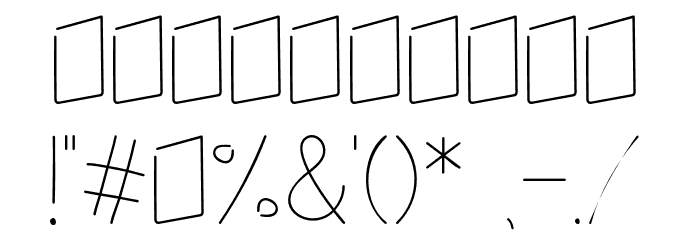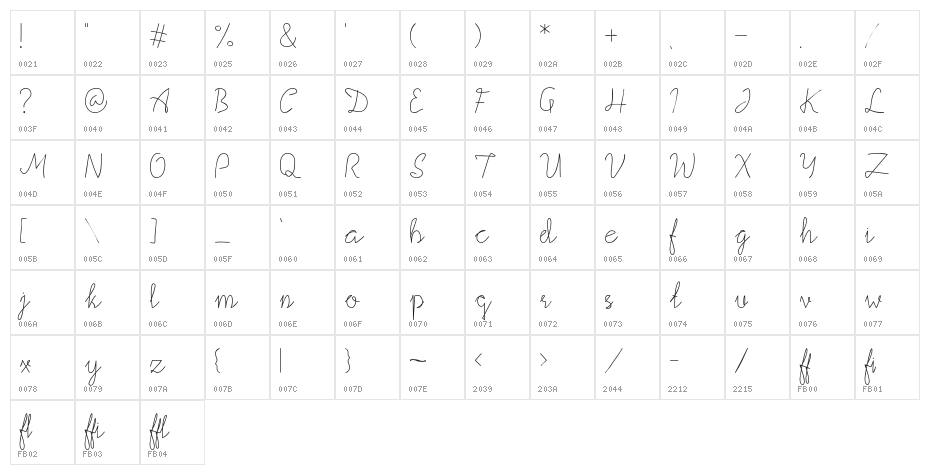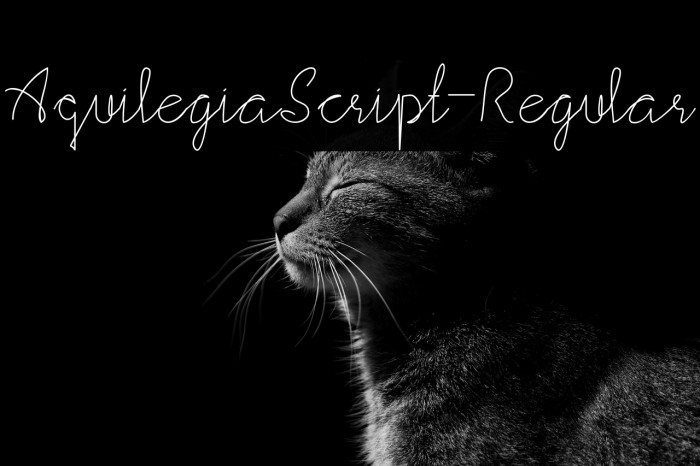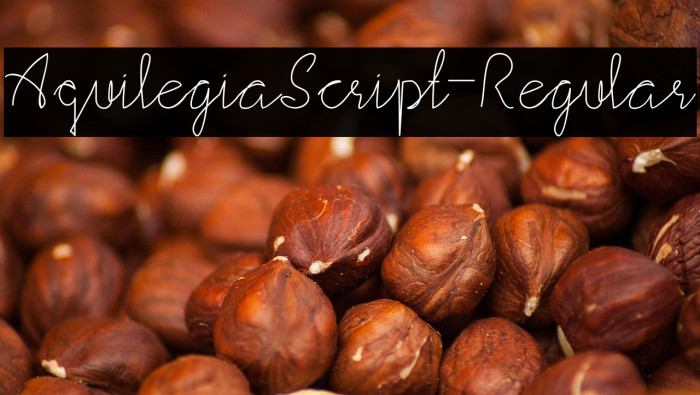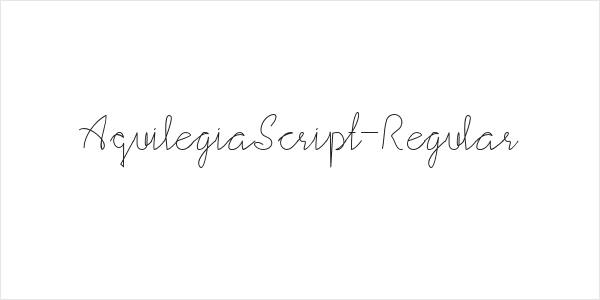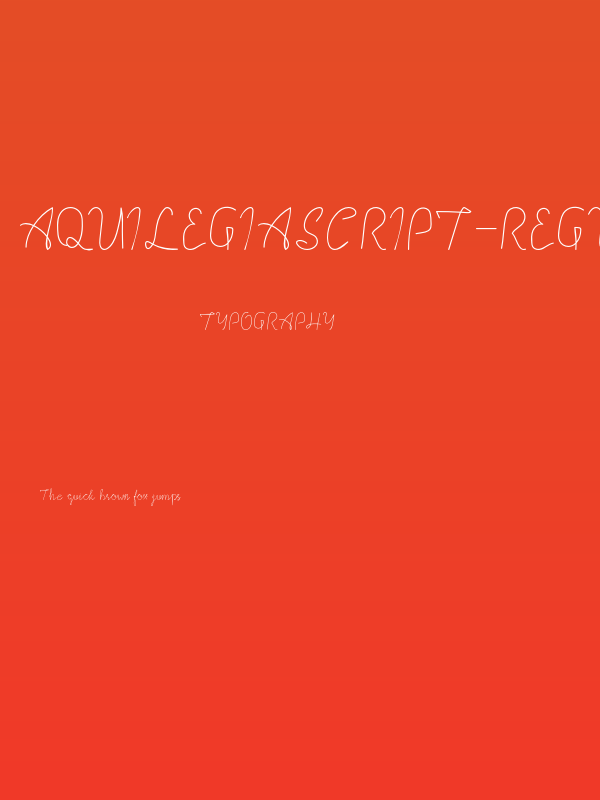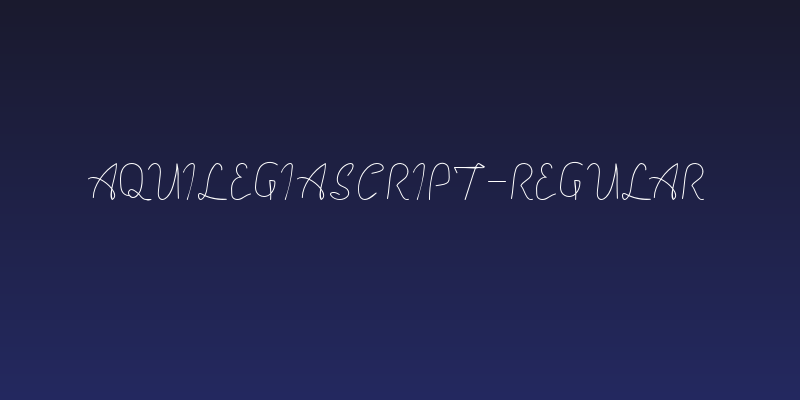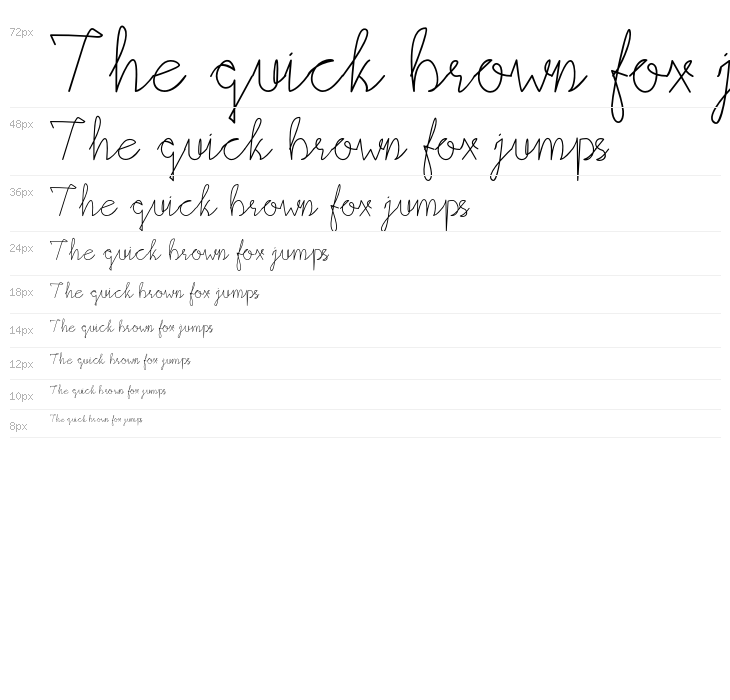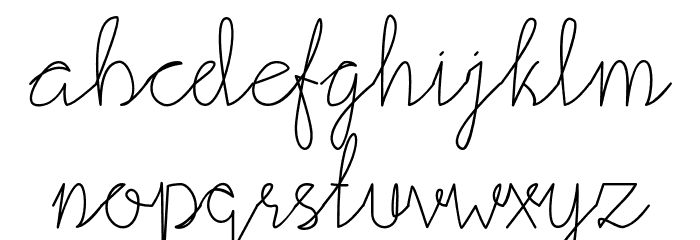
AquilegiaScript-Regular Font
AquilegiaScript-Regular Description
This font features an elegant and flowing script style, characterized by its smooth, connected strokes and a handwritten appearance. The uppercase letters are tall and slightly slanted, giving a sense of movement and grace. The lowercase letters maintain a consistent flow, with loops and curves that enhance its cursive nature. The numerals and special characters are designed to match the overall aesthetic, providing a cohesive look. This font is ideal for projects that require a personal touch or a sophisticated, yet approachable feel.
| Proposed Projects | Ideal for wedding invitations, greeting cards, personal branding, and elegant packaging designs. |